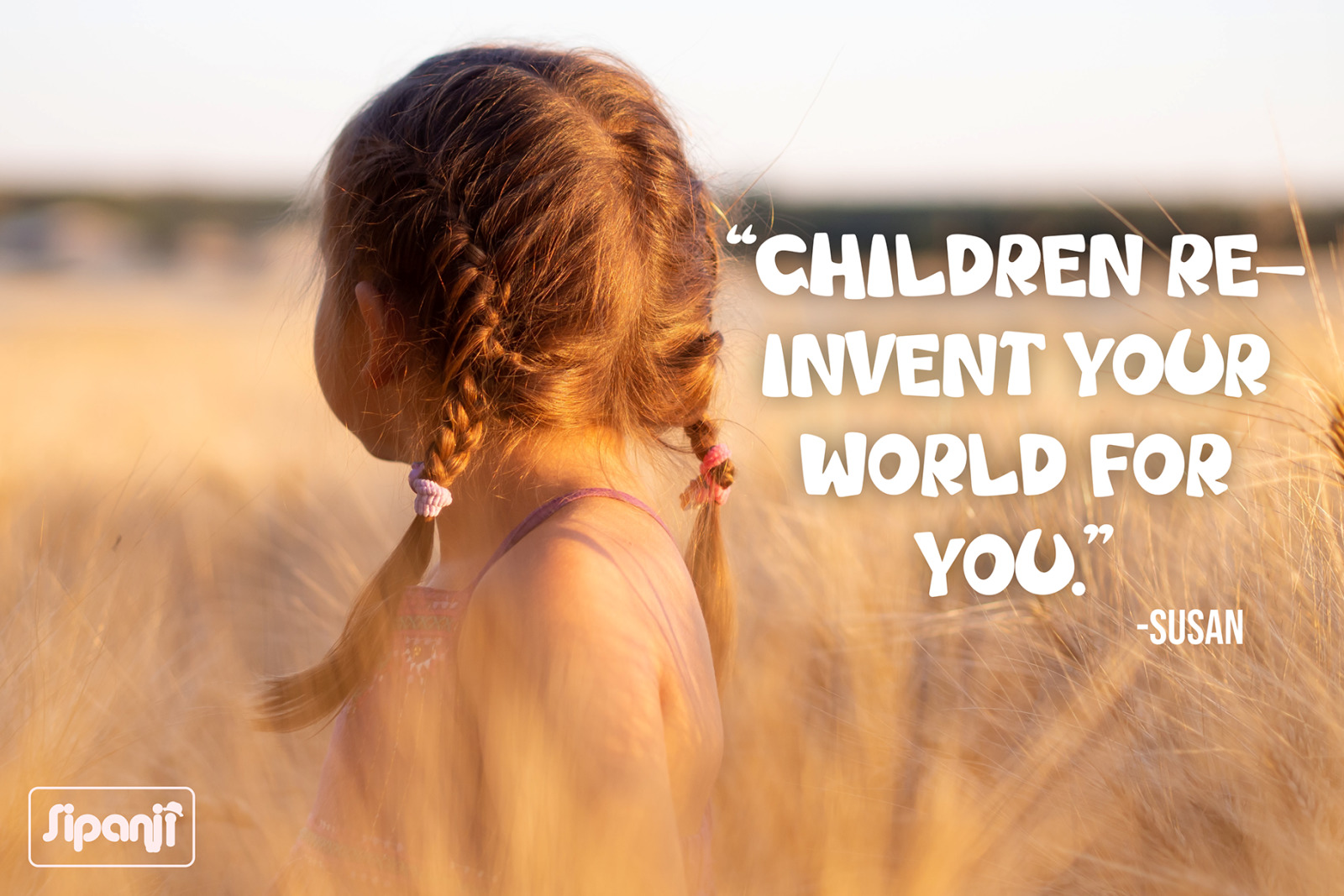
Hayven Font
Hayven is a funny, bold and cute display font with a unique twist. Get inspired by its unique feel, and turn add a lovely charm to any crafts project!